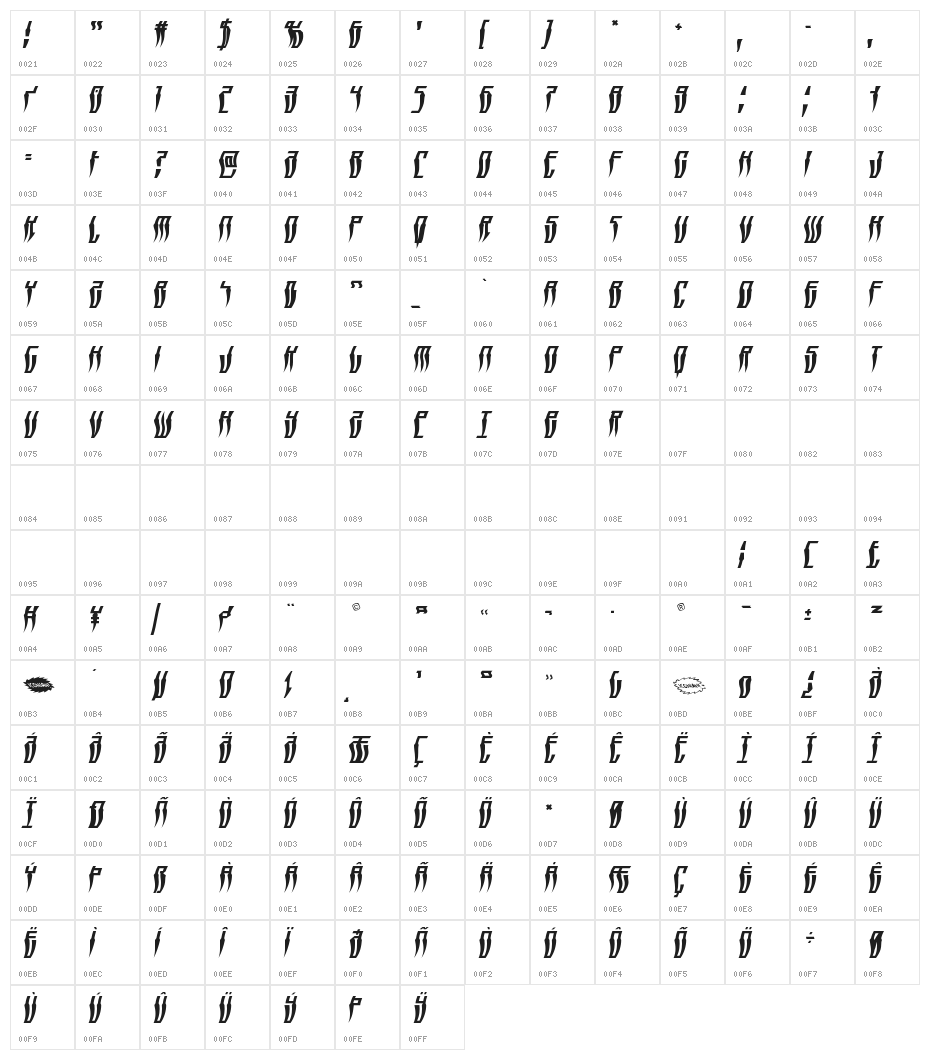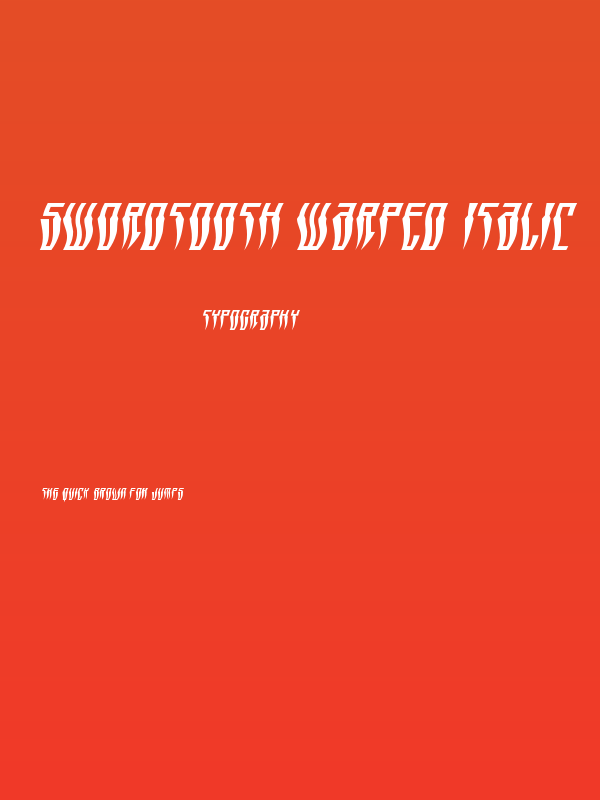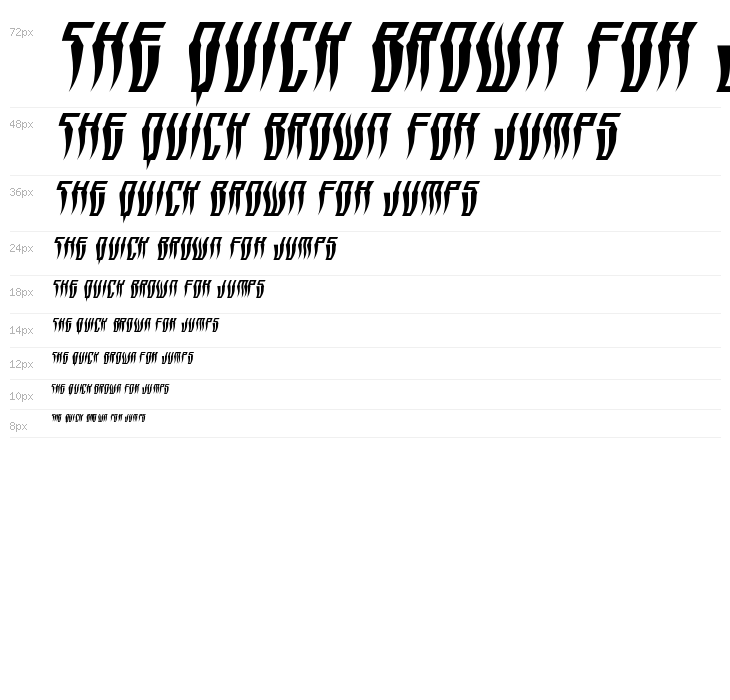
Swordtooth Warped Italic Font
Swordtooth Warped Italic Description
This font features a sharp, angular design with a distinct warped effect, giving it a dynamic and aggressive appearance. The characters are elongated with pointed ends, creating a sense of motion and intensity. The italic style enhances the forward-leaning posture of the letters, adding to the overall sense of speed and energy. The uppercase and lowercase letters maintain a consistent style, with the numerals and special characters following suit. This font's unique style makes it stand out, ideal for projects that require a bold and striking visual impact.
Proposed ProjectsIdeal for video game titles, sports branding, action movie posters, and edgy graphic design projects.